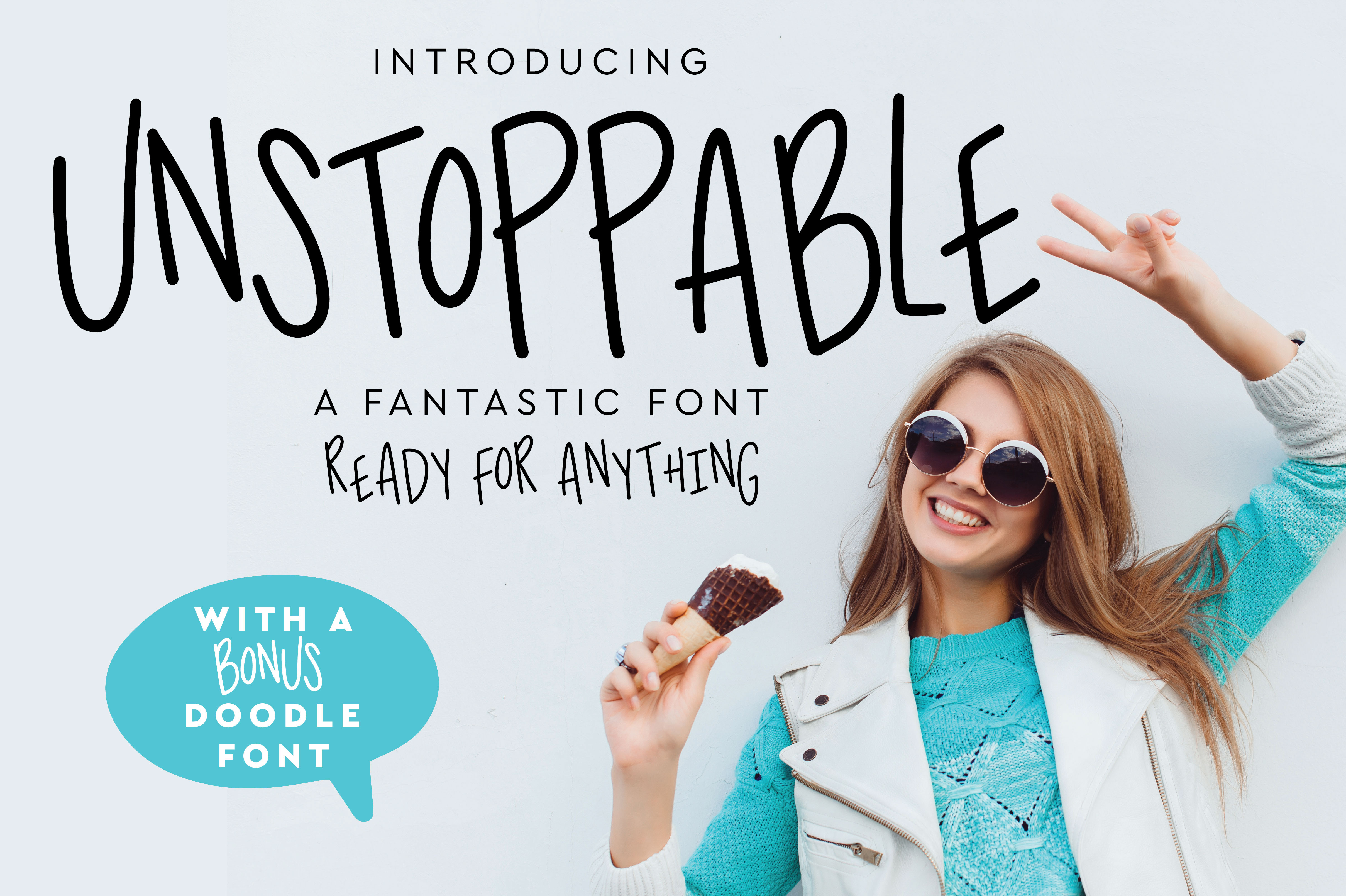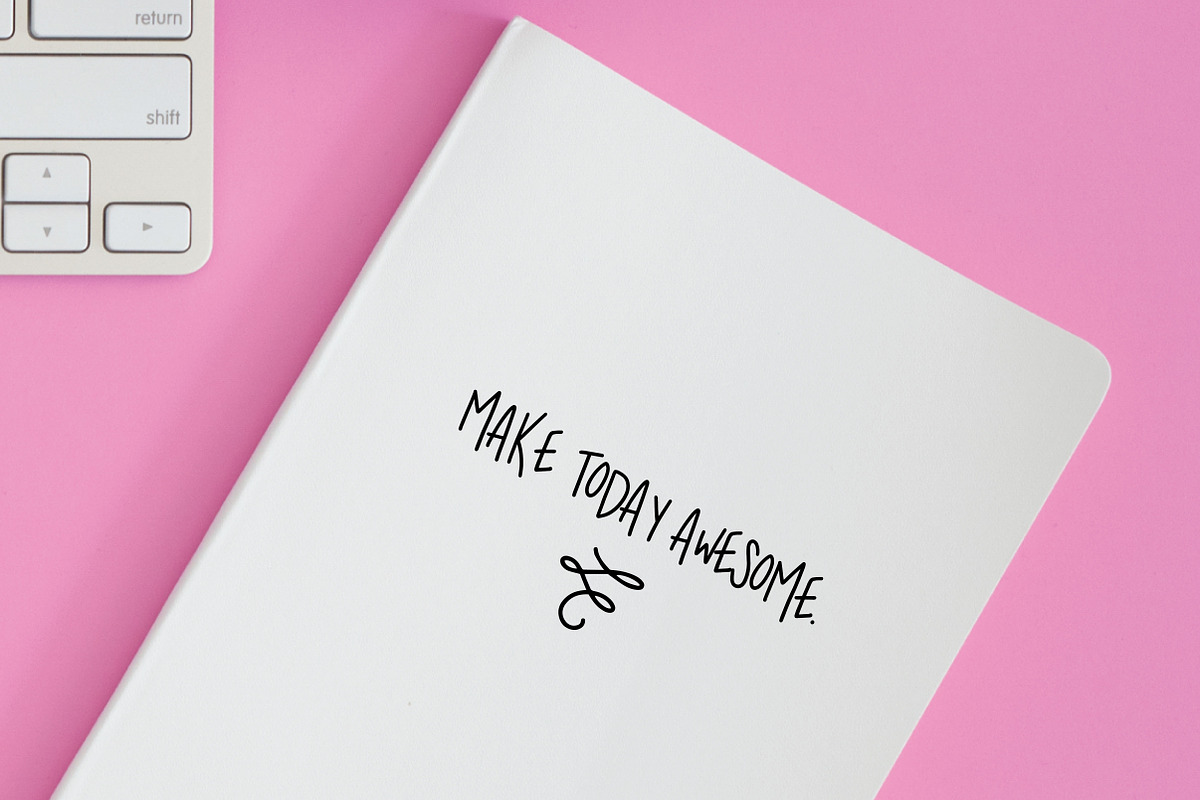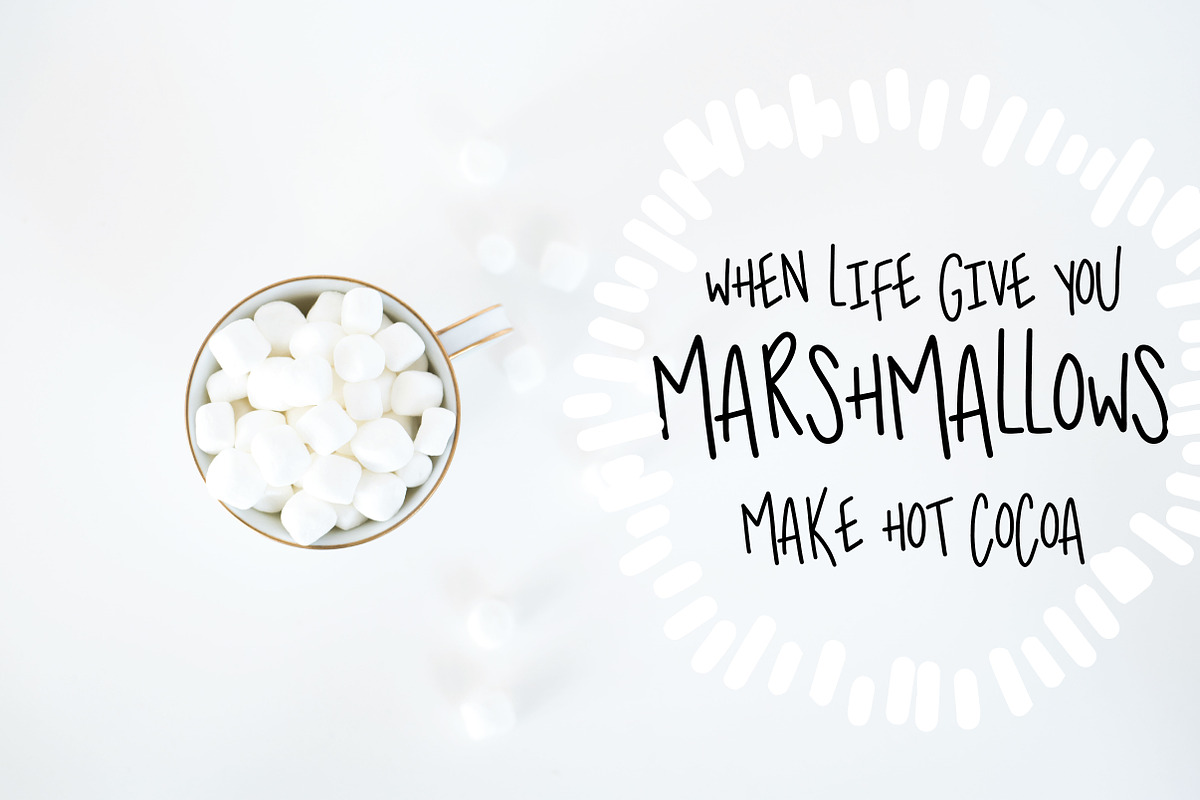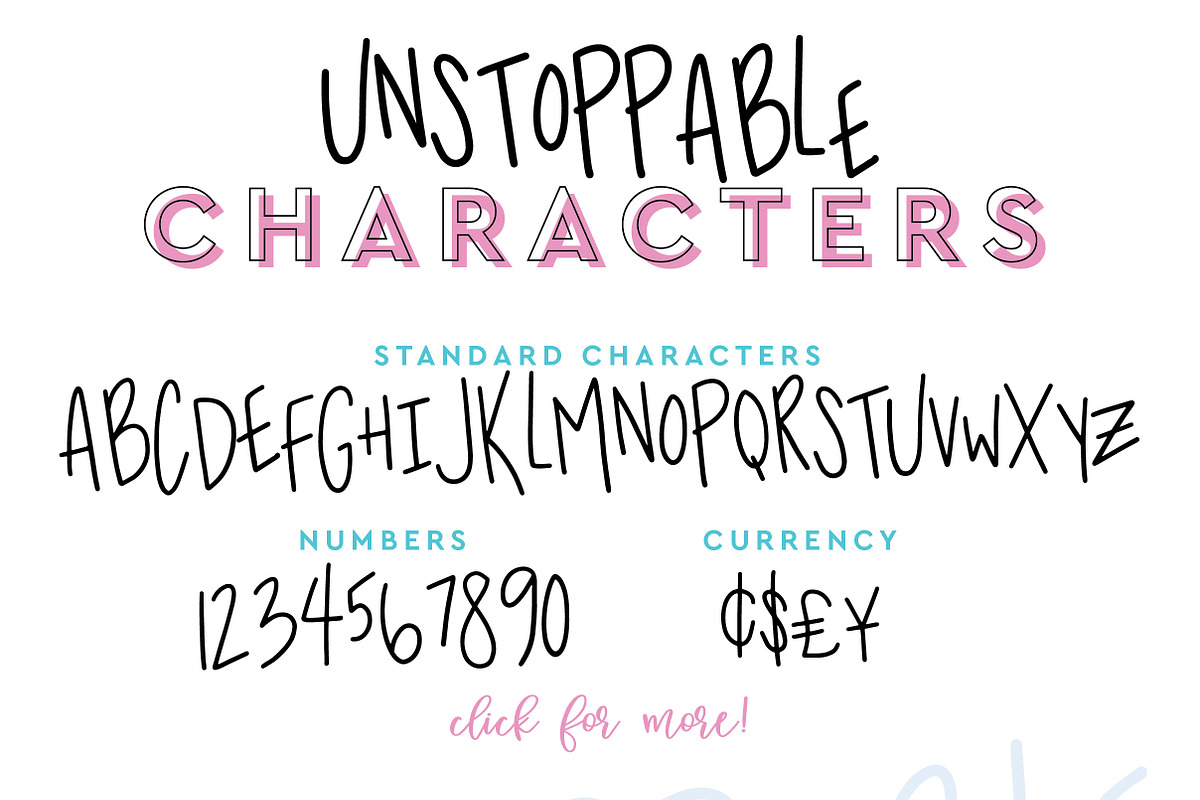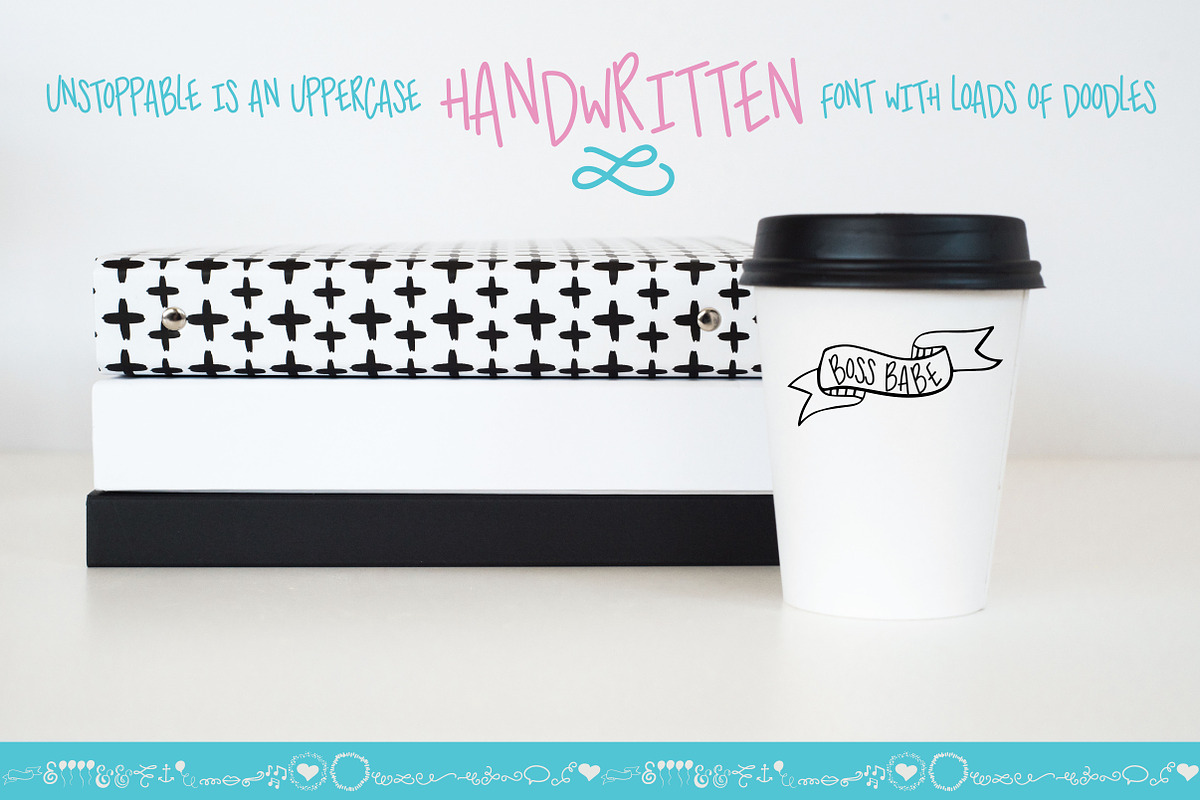
Unstoppable Handwritten Font
Obsessed with hand-lettered fonts? Unstoppable is a hand lettered sans serif font that packs pairs well with other fonts, is readable, and brings lots of character.
Unstoppable is perfect for using in your branding, weddings, logos, business cards, merchandise, greeting cards, posters, magazines, social media and websites.
Included is a BONUS doodles font allowing you to create one-of-a-kind designs quickly. The doodles are also included as .eps AND .png files!